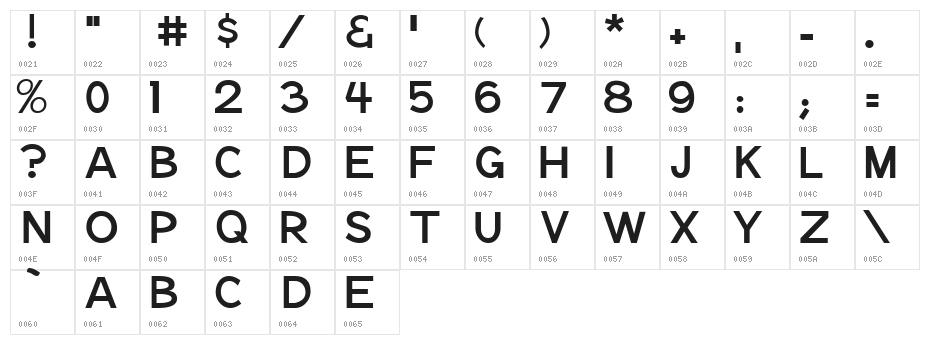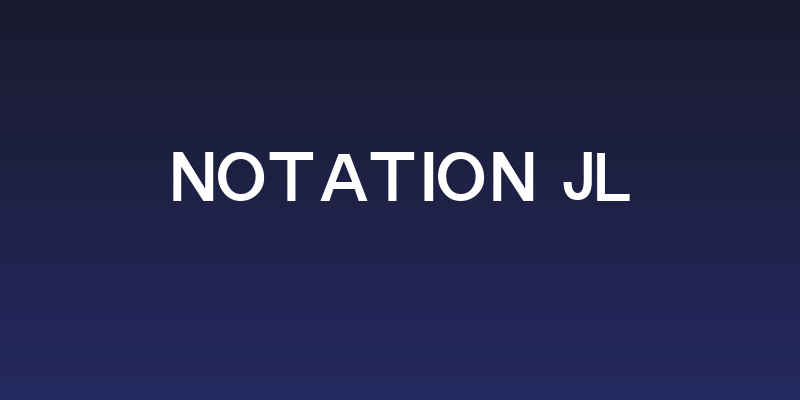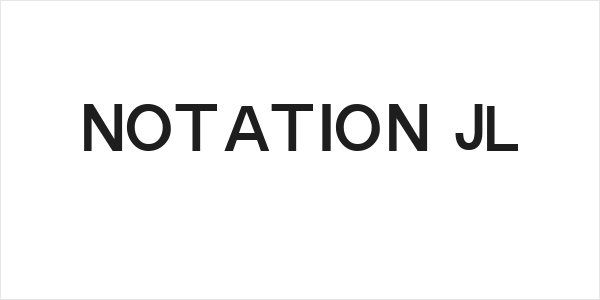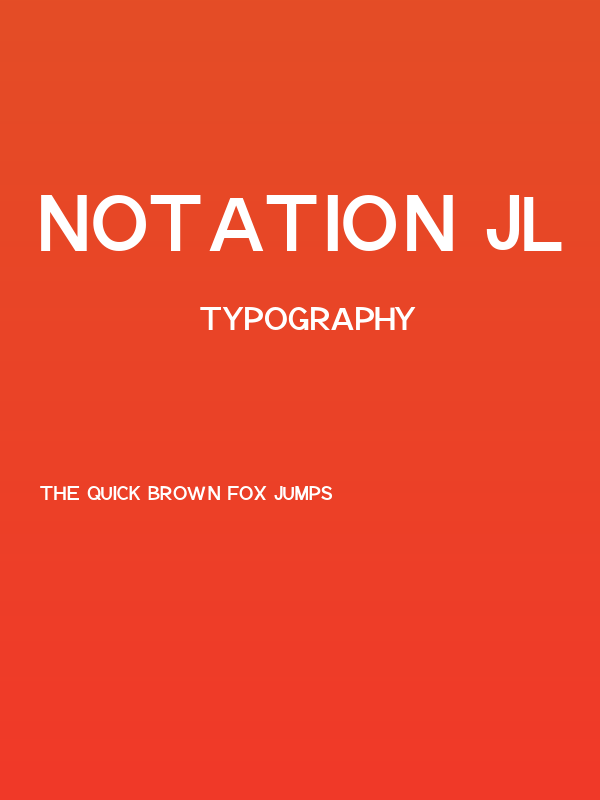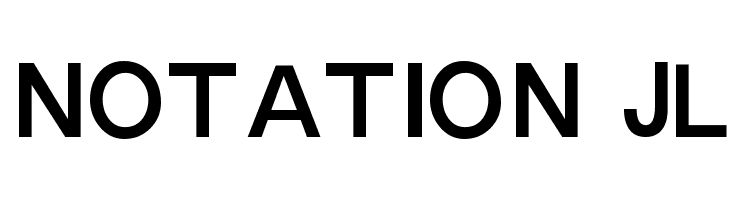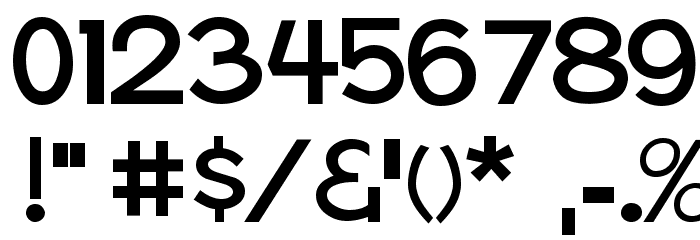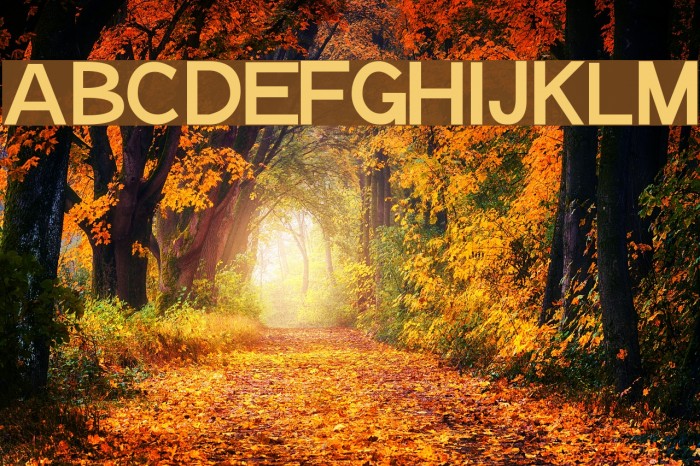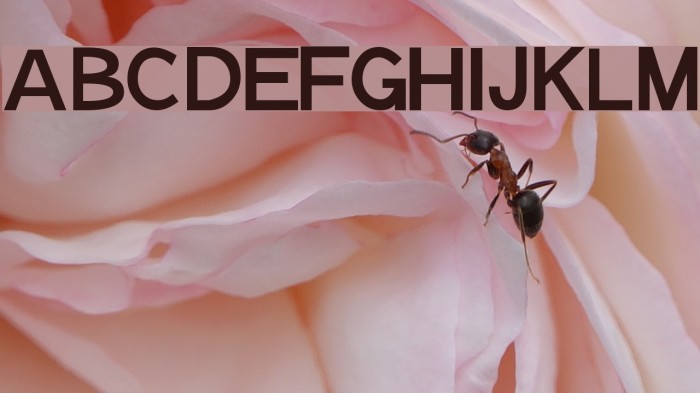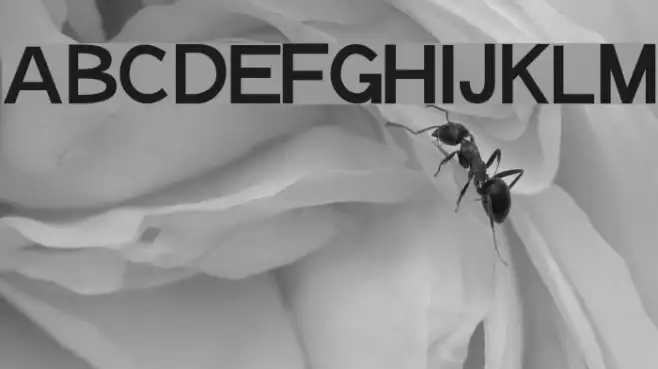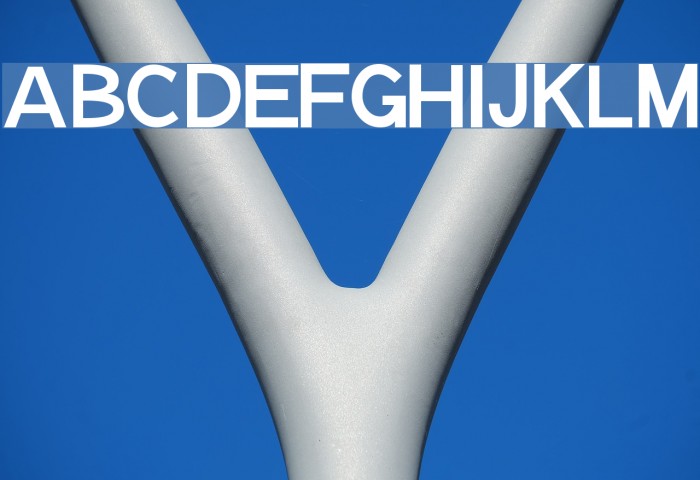
Notation JL Font
Notation JL Description
This font features a bold and modern sans-serif design with clean, straight lines and uniform stroke widths. The characters are well-proportioned, offering a strong and impactful appearance. The uppercase and lowercase letters maintain a consistent style, enhancing readability and visual appeal. The numerals are clear and distinct, making them suitable for various applications. Special characters are included, providing versatility for different contexts. Overall, this font exudes a contemporary and professional aesthetic, ideal for making a statement.
| Use Case | Headlines, Logos, Advertising |
| Proposed Projects | Ideal for branding, advertising, headlines, and digital content where a strong, modern look is desired. |